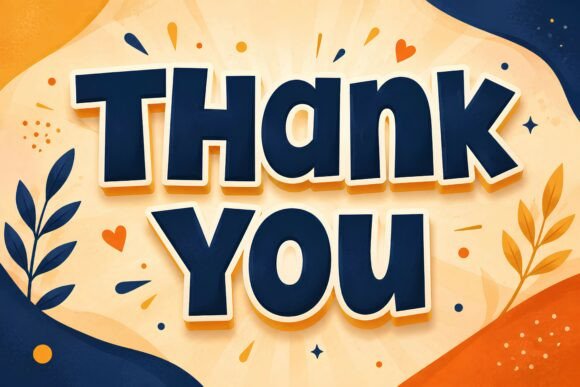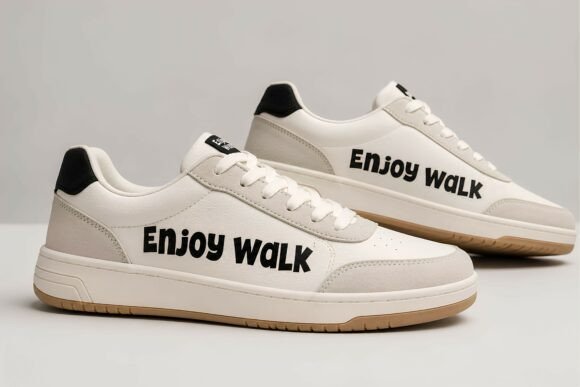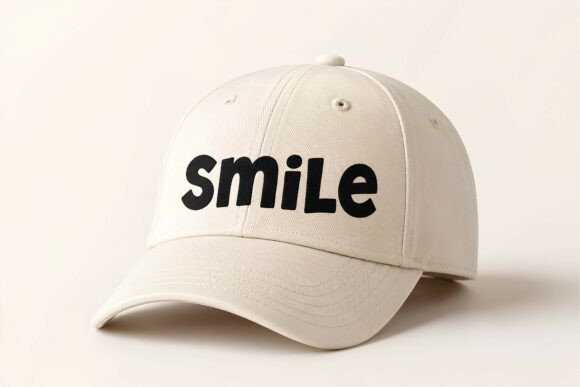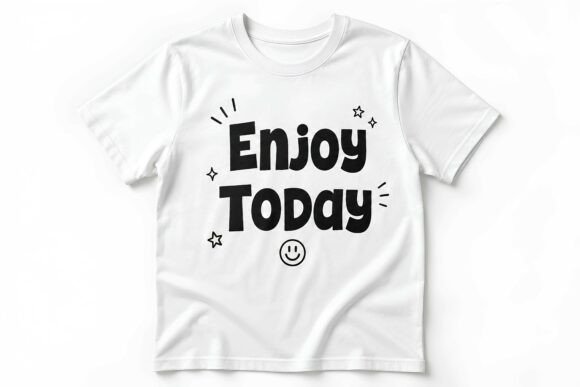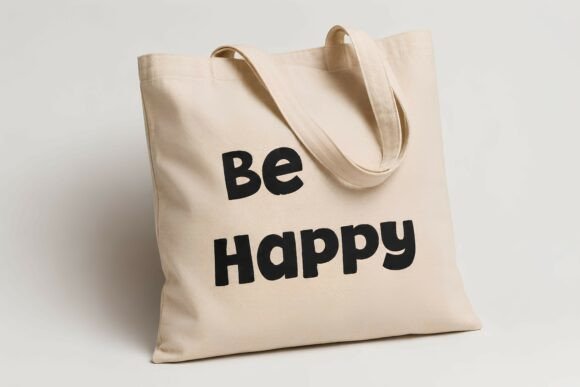
Introduction to Playful Mess Font
Have you ever stared at a blank canvas, feeling the creative juices flowing, but struggling to bring your idea to life? That’s where the magic happens – and sometimes, a little help from the right design resource can make all the difference. For designers, crafters, and anyone looking to add a dash of whimsy to their work, the Playful Mess Font is a game-changer.
This bold, quirky, and handmade display font is the perfect companion for any creative project, from kids’ designs and crafts to posters, stickers, and social media graphics. With its fun, imperfect style and cute, cheerful personality, the Playful Mess Font is sure to bring a smile to your face – and a touch of high-quality design to your work.
Whether you’re a seasoned designer or just starting out, the Playful Mess Font offers a transparent background and free download, making it a valuable addition to your design toolkit. So why settle for ordinary when you can create something extraordinary with this playful, high-quality font?
Key Features of Playful Mess Font
- Unique and quirky design ideal for creative projects, offering a playful twist to your content.
- High-quality font available for free download, making it an excellent design resource for artists and designers.
- Transparent background option allows for seamless integration with various backgrounds and design elements.
- Perfect for use in digital and print media, including logos, graphics, and other creative projects.
Honest Review: Playful Mess Font
I recently had the chance to work with the Playful Mess Font, and I must say it’s been a breath of fresh air in my creative project. The high quality design is evident from the moment you download it.
What works well: ✨ The font is incredibly versatile and can be used for a wide range of creative projects, from children’s books to social media graphics. The transparent background option is also a huge plus, allowing me to easily place the text on any image or design.
- Pros:
- Wide range of creative uses
Overall, I’m really impressed with the Playful Mess Font and would highly recommend it as a valuable design resource for any creative project.
The Playful Mess Font is a free design resource perfect for creative projects that require a unique and playful touch. With its high-quality design, this font is ideal for use on transparent backgrounds, adding a creative twist to your work.
To get the most out of the Playful Mess Font, experiment with different font sizes, colors, and styles. You can also pair it with other fonts to create a unique and eye-catching design.
The Playful Mess Font is perfect for use in creative projects such as:
- Invitations and party decor
- Graphic design and visual arts